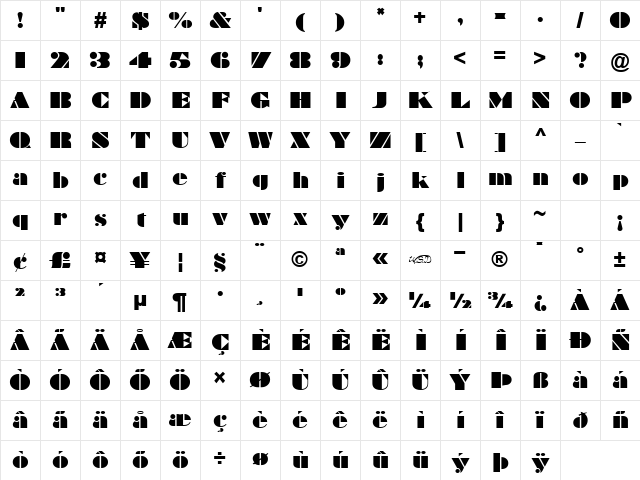
Bravado Regular
Design Context for Bravado
Bravado is a composed and adaptable typeface that performs quietly and consistently across a wide range of design contexts.
Pro Tip: Use Bravado in both headline and body roles to test its range before committing to a single application.